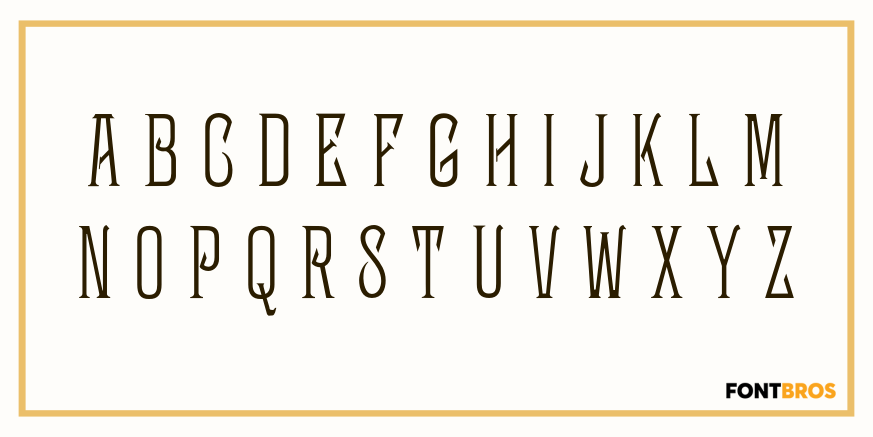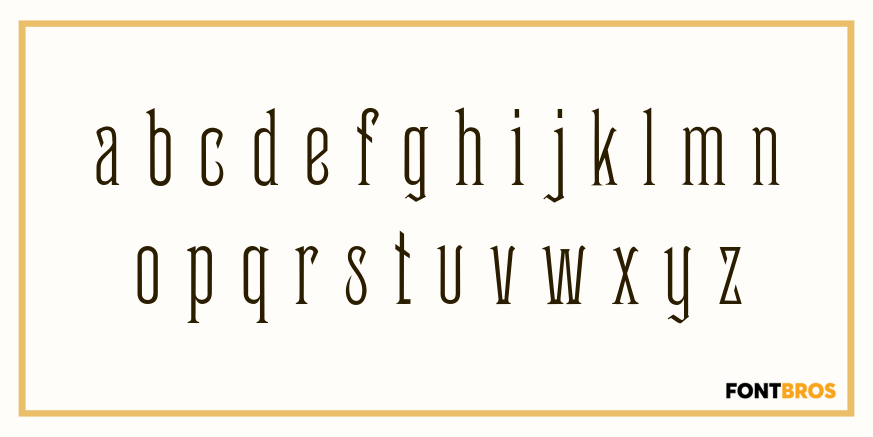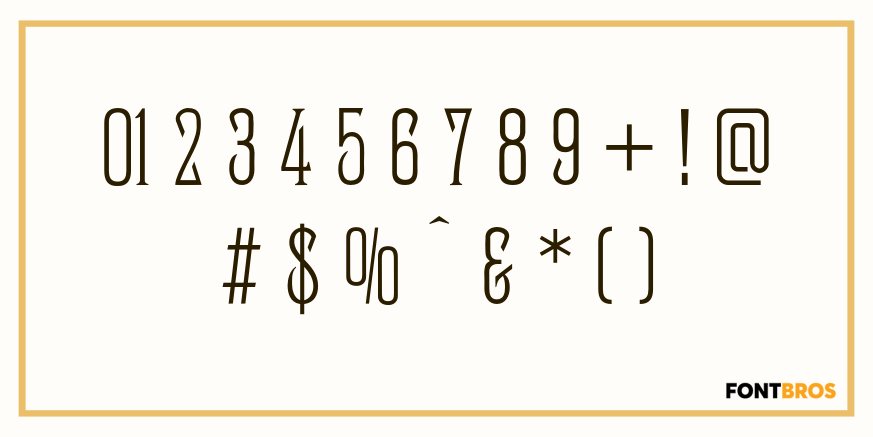
Sentry
Font Family by Solotype
Here's a good old Victorian job printing font.
Faithful to the original issued by Barnhart Bros. & Spindler about 1880.
Nothing wildly decorative about it, yet it clearly looks old.